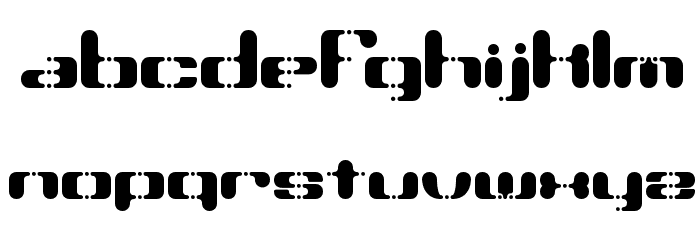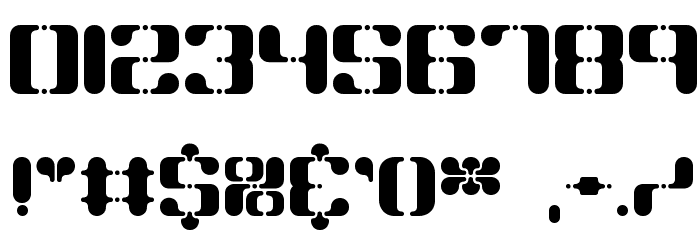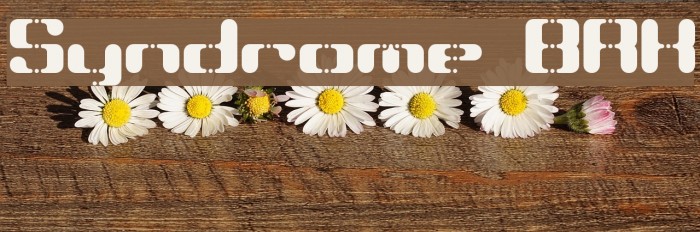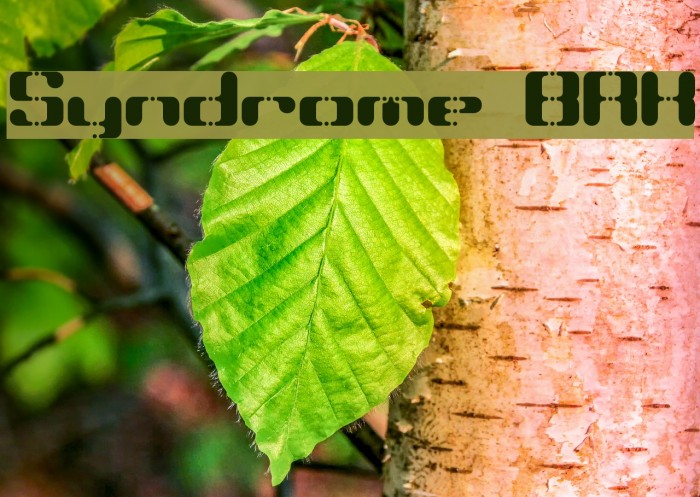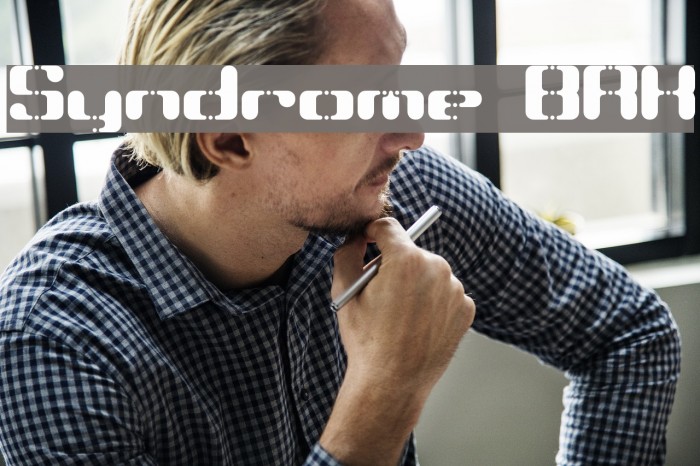
Syndrome BRK Font
This font features a bold, geometric design with a unique, futuristic aesthetic. The characters are constructed with a series of rounded, block-like shapes that are interconnected by small, circular cutouts, giving it a mechanical and industrial feel. The uppercase and lowercase letters maintain a consistent style, with the lowercase being slightly more compact. Numbers and special characters follow the same design principles, ensuring uniformity across all glyphs. The font's distinct appearance makes it stand out, ideal for projects that require a modern and edgy look.
A bold, geometric font with a futuristic and industrial design.
- Proposed Projects: Ideal for technology branding, sci-fi themed projects, video game titles, and modern poster designs.
- Overall Style: Futuristic